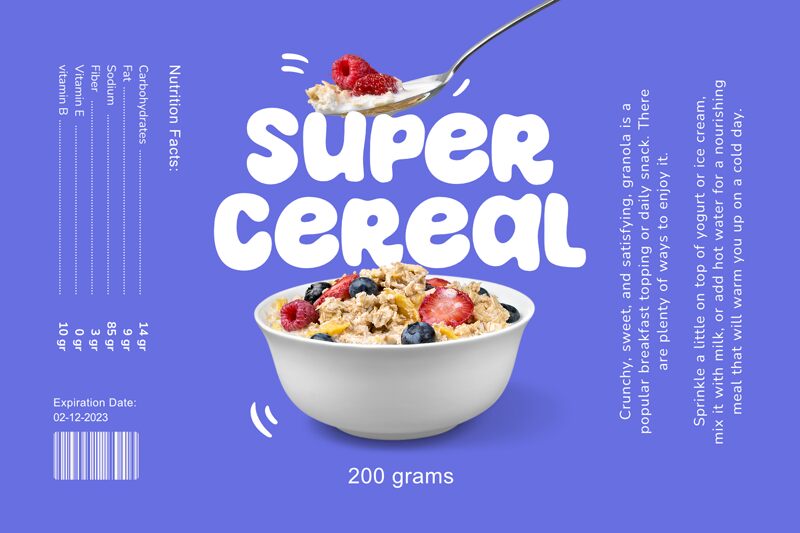
Super Cereal
Super Cereal, designed by fsuarez913, is a captivating display font that adds a whimsical touch to any project. With its extra-bold weight and cartoon-inspired style, this font is perfect for children's book covers, animated movie posters, and playful logo designs. Its unique charm and boldness make it an ideal choice for creating eye-catching headlines, packaging designs, and even website headers. Super Cereal brings a delightful sense of fun and adventure to any creative endeavor. Let your imagination run wild with this lively font!